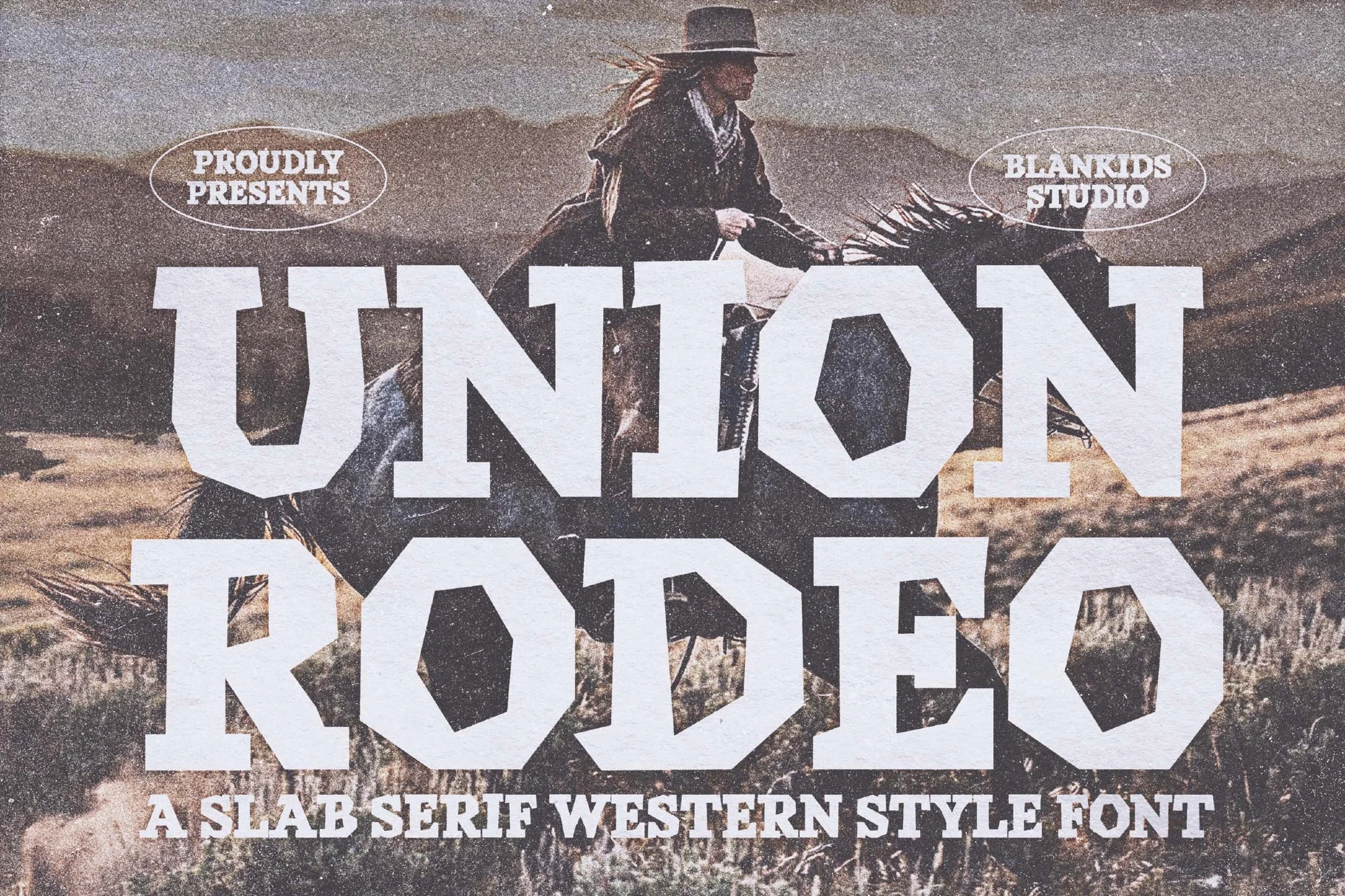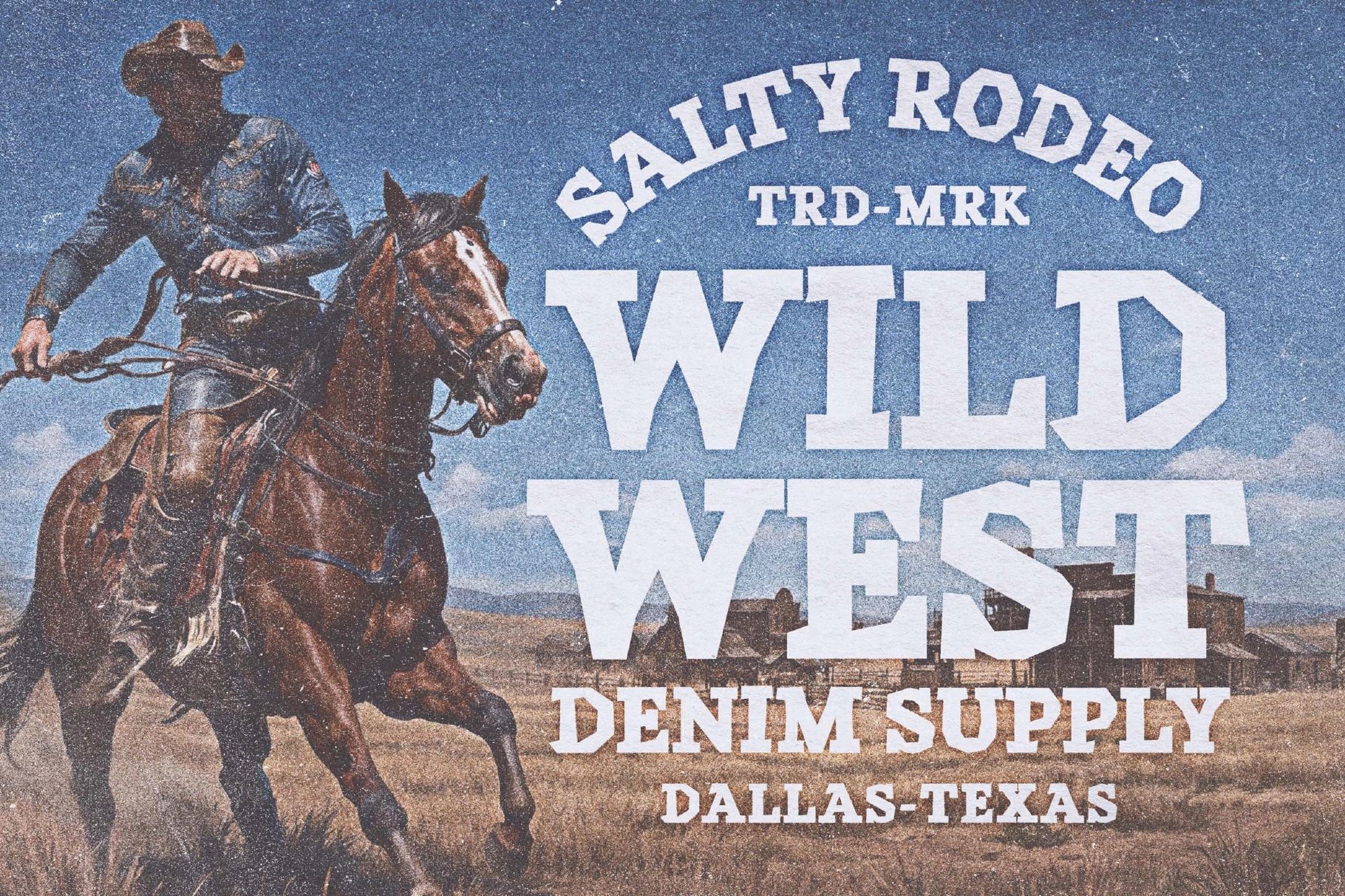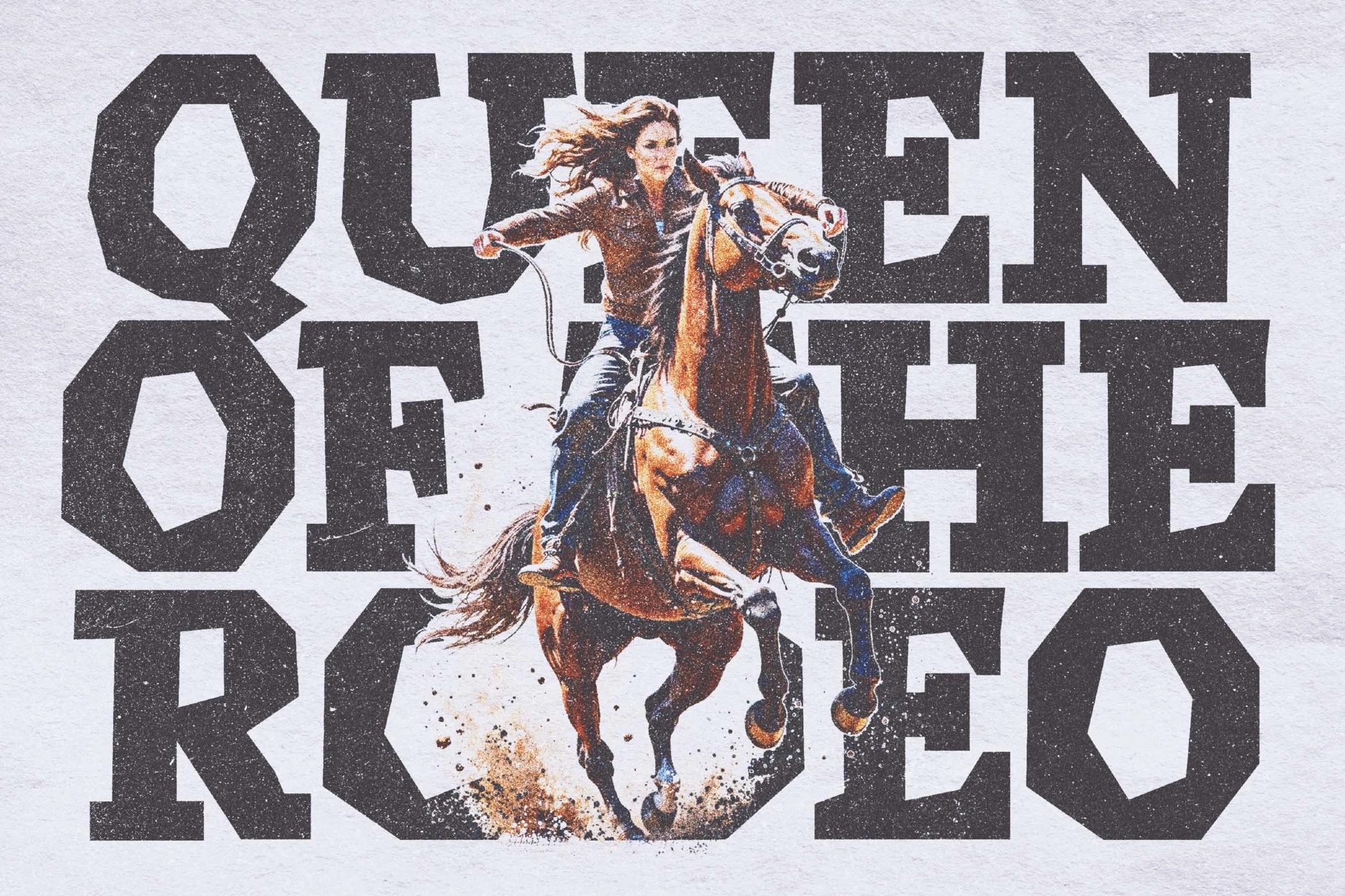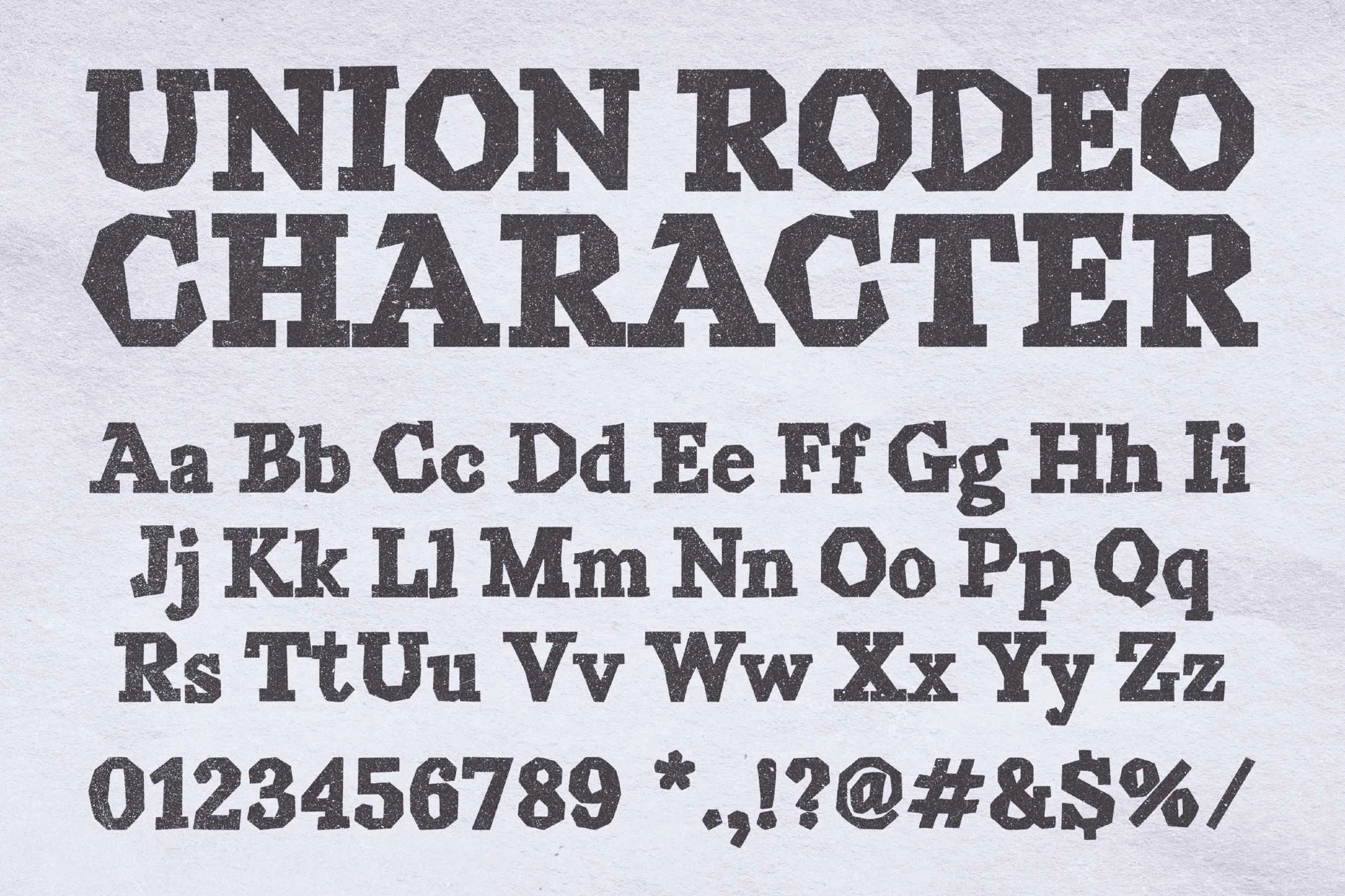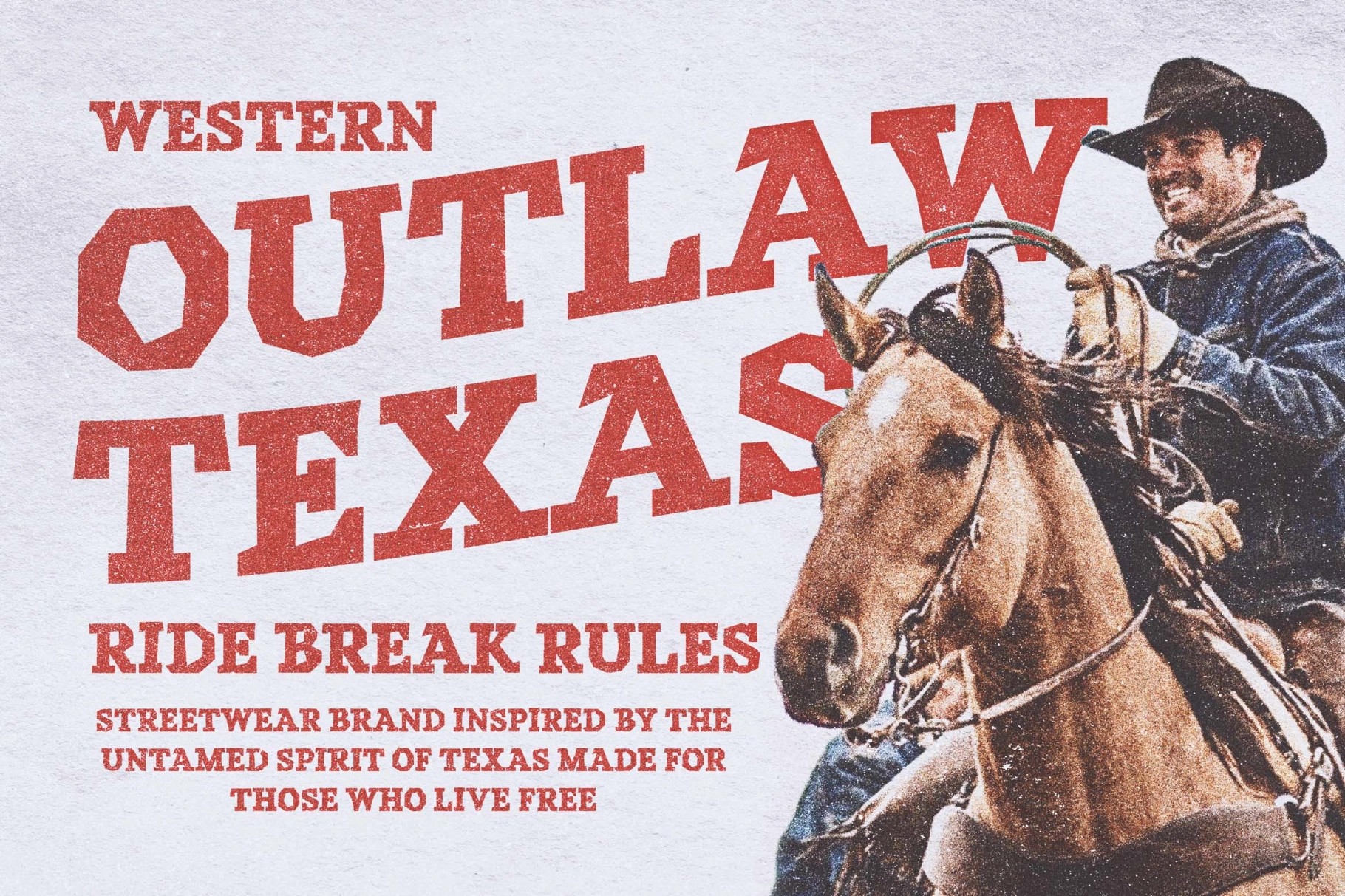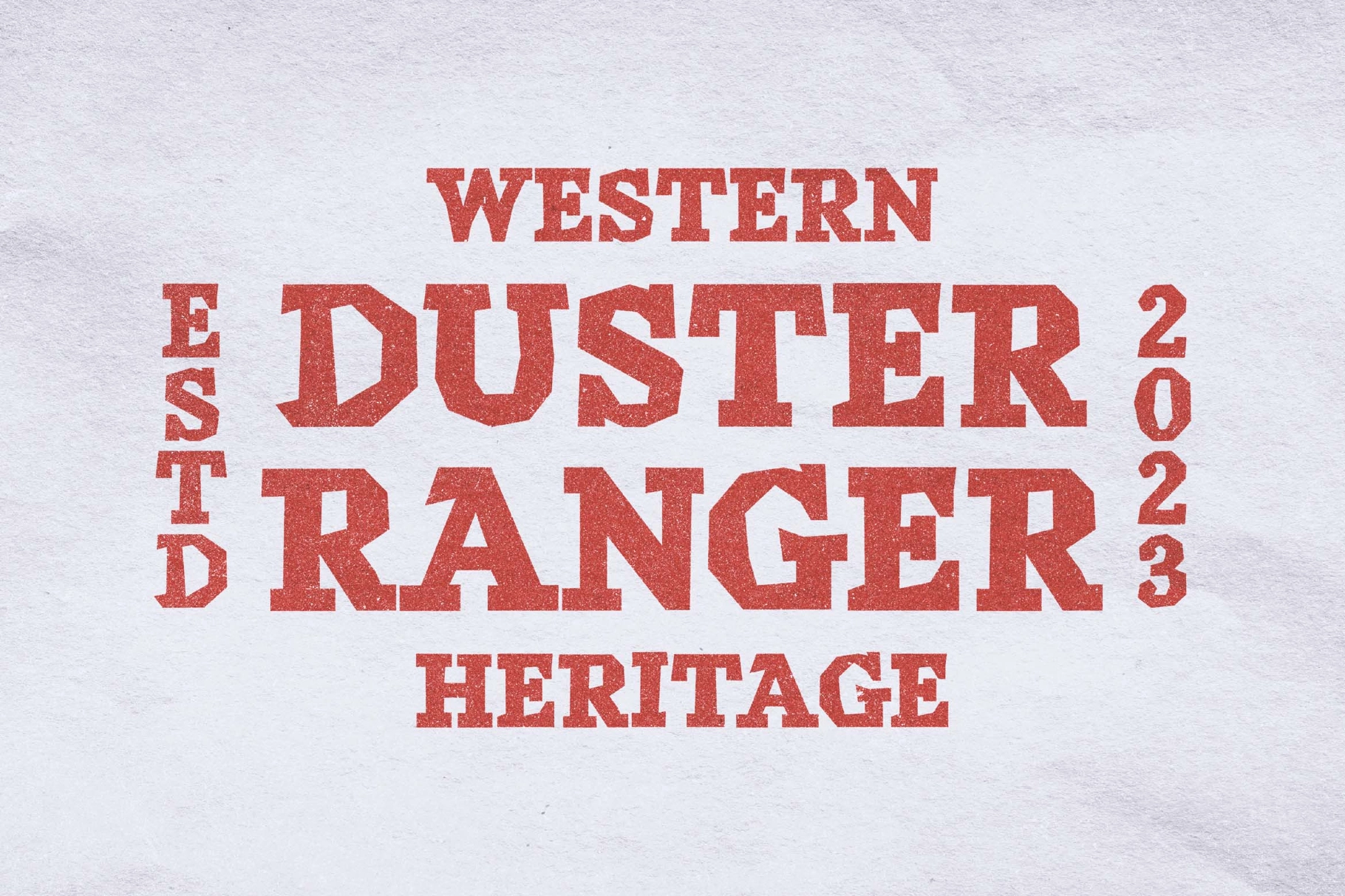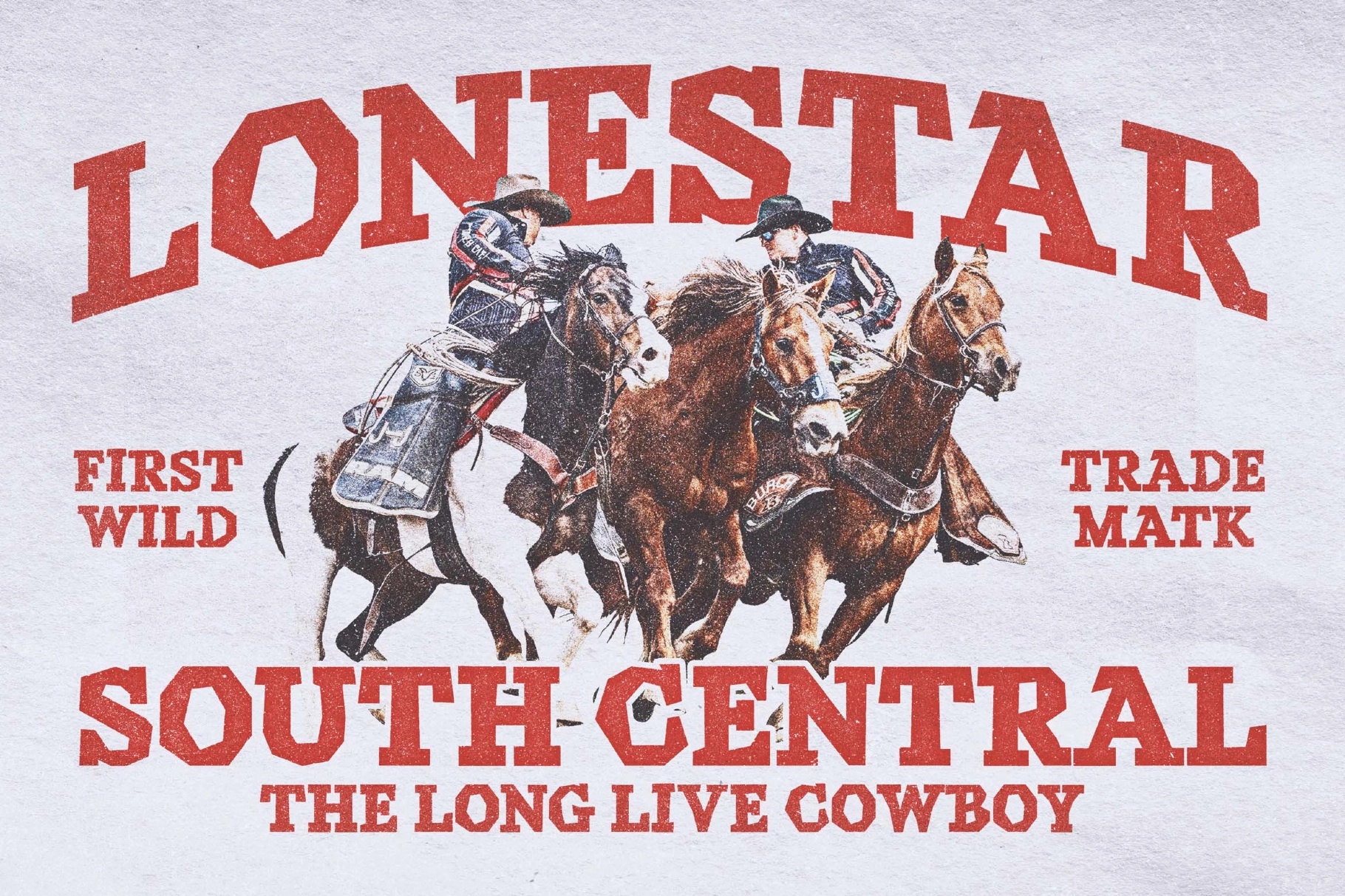
Union Rodeo – Slab Serif Western Style Font
Union Rodeo is a bold slab serif font inspired by classic Western typography, vintage rodeo posters, and old American frontier aesthetics. Designed with strong geometric shapes and powerful letterforms, this font delivers a rugged, masculine, and confident character that instantly commands attention.
With its heavy strokes and sharp slab serifs, Union Rodeo is perfect for projects that need a strong visual impact. The font works exceptionally well for logos, branding, posters, apparel design, signage, packaging, headlines, book covers, movie titles, and vintage-style layouts. Whether you’re creating a modern western brand or a retro inspired design, Union Rodeo brings authenticity and boldness to your work.
Union Rodeo blends classic western spirit with modern usability, making it versatile for both digital and print applications. Its clean structure ensures readability while maintaining a strong personality that stands out in any composition.
Best for:
- Western & vintage branding
- Logo and badge design
- Posters & flyers
- Apparel & merchandise
- Packaging design
- Editorial headlines
- Social media graphics
If you’re looking for a font that captures the soul of the wild west with a bold and timeless look, Union Rodeo is the perfect choice to elevate your designs.